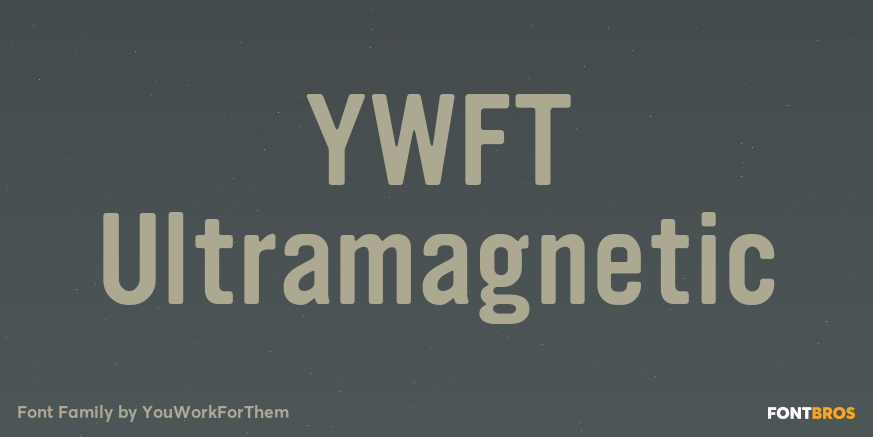
YWFT Ultramagnetic
How to make soft-yet-gothic? Countless hours spent researching, and years of refinement, that\’s how. YWFT Ultramagnetic was finally mastered to postscript/truetype format in 1999 and has gone on to be one of the most widely-used YWFT exclusives of all…